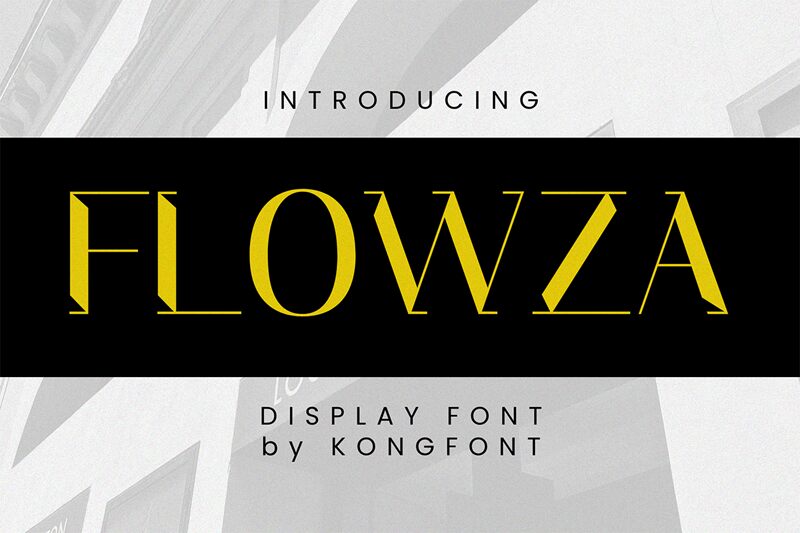
Flowza font by Kong Font is a free display serif typeface that slices elegance into sharp, geometric planes. Its letterforms swing between silky, flowing curves and bold, inky blocks, creating a rhythm that feels both theatrical and meticulously controlled. The tight spacing and sculpted diagonals pull the eye forward, making every word feel like a custom logotype rather than simple text.
Using Flowza, headlines turn into statement pieces for fashion branding, beauty packaging, poster design, editorial covers, sleek portfolios, and upscale event invitations. This free font shines at larger sizes, where its angular details and sweeping shapes can breathe. Pair Flowza with a clean, neutral sans serif for body copy to let its dramatic personality lead without overwhelming the overall layout.